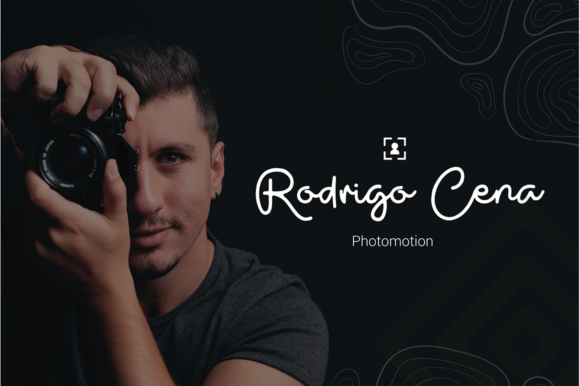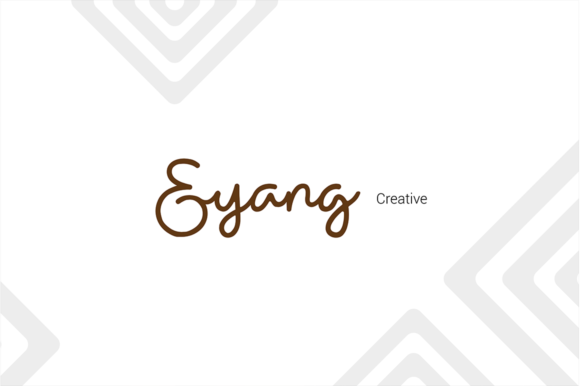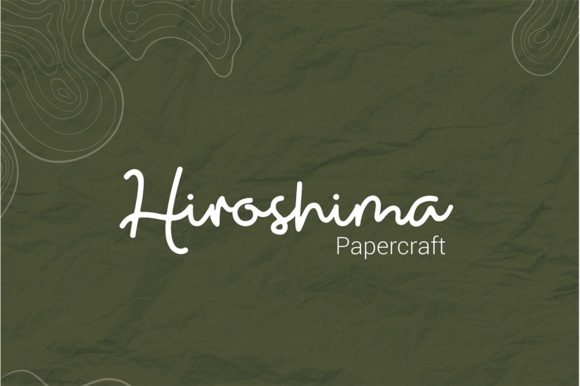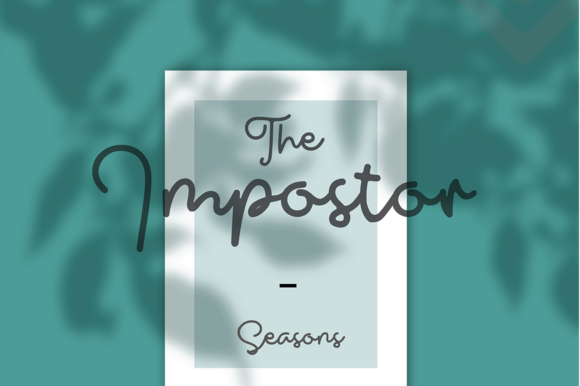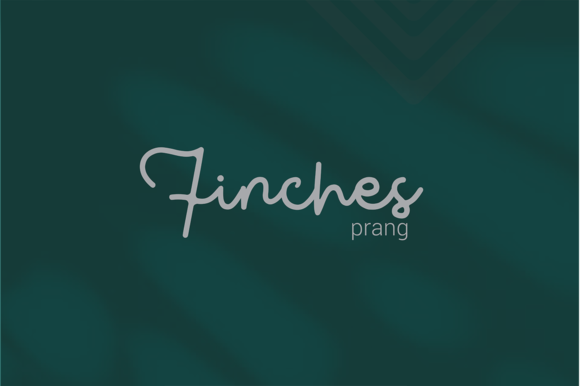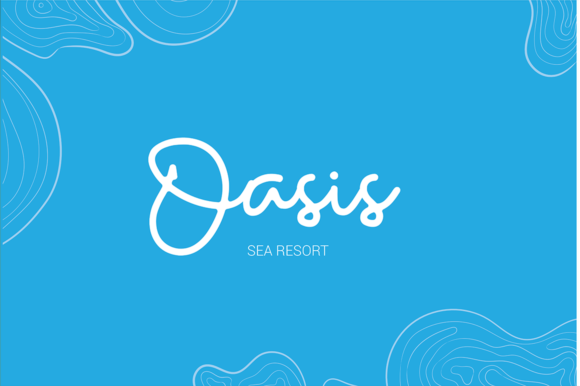
Introduction to Gasing Font
Gasing is a neat, cute and readable handwritten font.
This gentle font will look gorgeous on a variety of design ideas It will add a joyful and romantic touch to each of your projects.